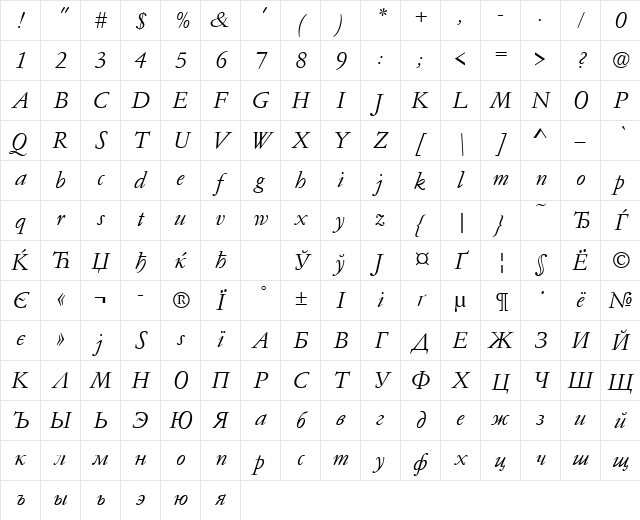
Complete GaramondNo4CyrTCYLig Italic glyph index. Displaying only characters natively supported by GaramondNo4CyrTCYLig Italic font.
GaramondNo4CyrTCYLig is a composed and adaptable typeface that performs quietly and consistently across a wide range of design contexts. The slanted form adds forward momentum and visual energy.
Pro Tip: Use GaramondNo4CyrTCYLig for emphasis, pull quotes, and subheadings where its slanted energy can add rhythm to the layout.